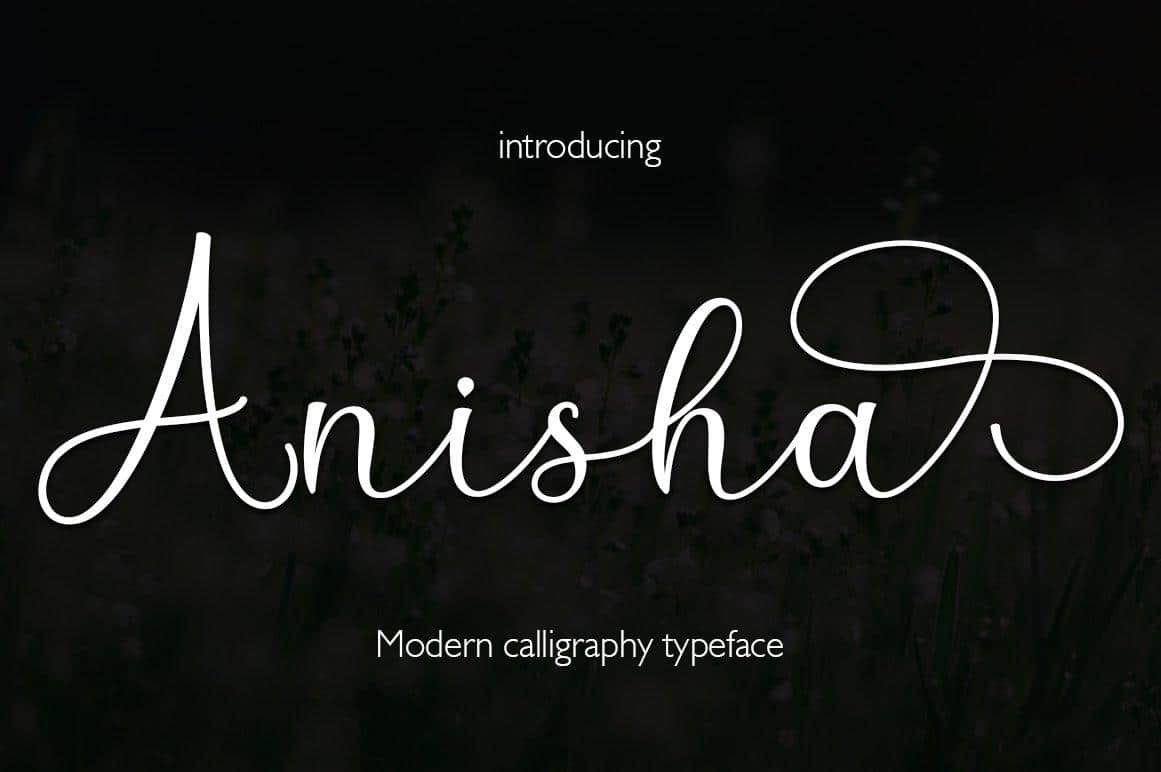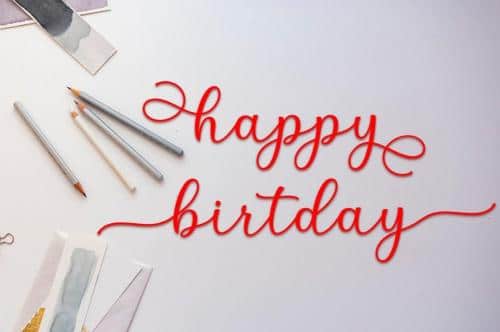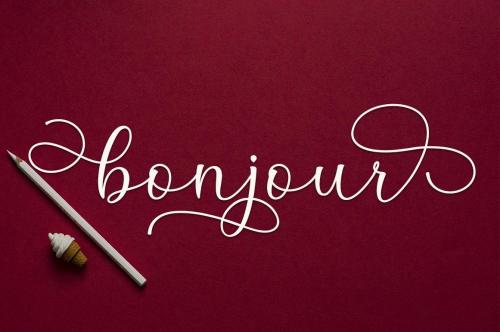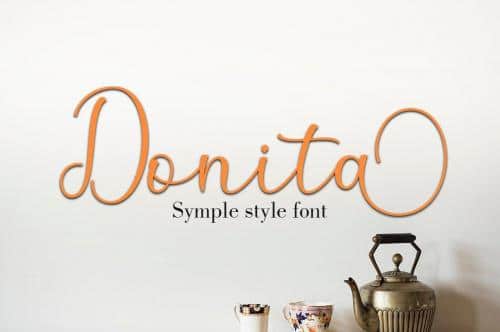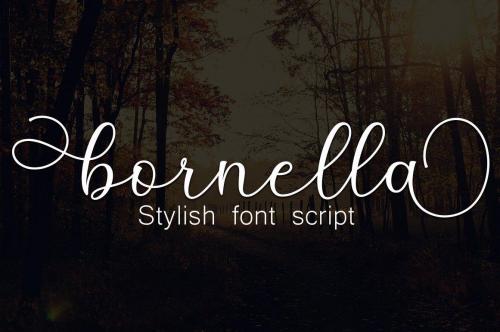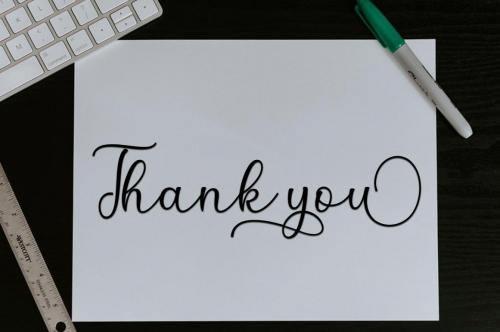
Anisha is a sweet calligraphic script that’s great for adding a sweet feel to your next design idea. Fall in love with its unique style!
- Designer: Greentype